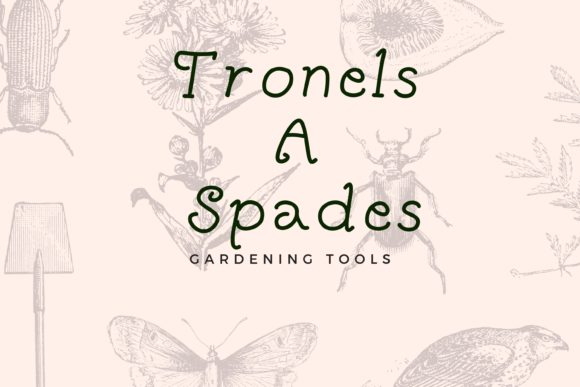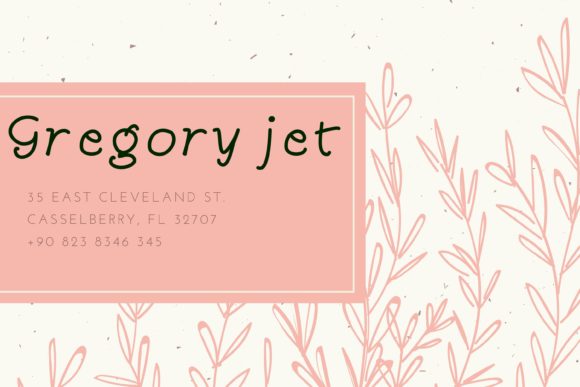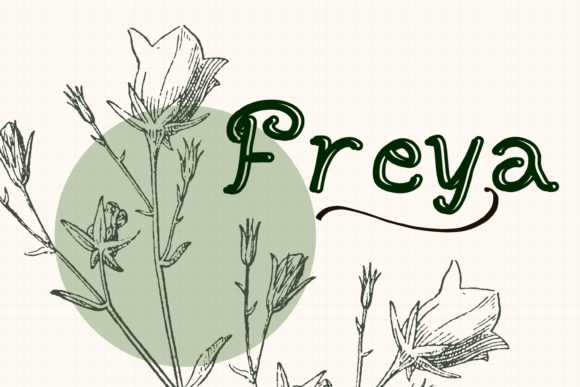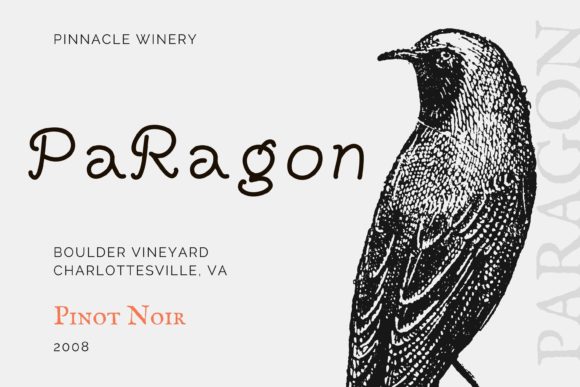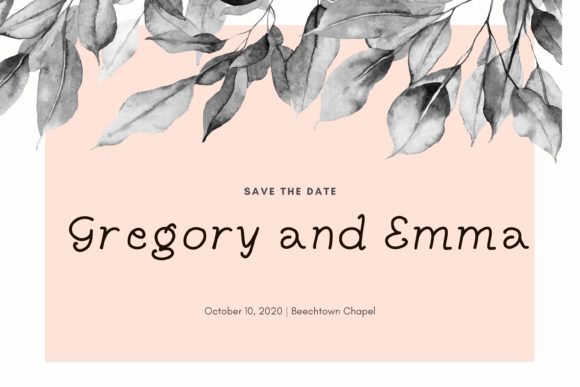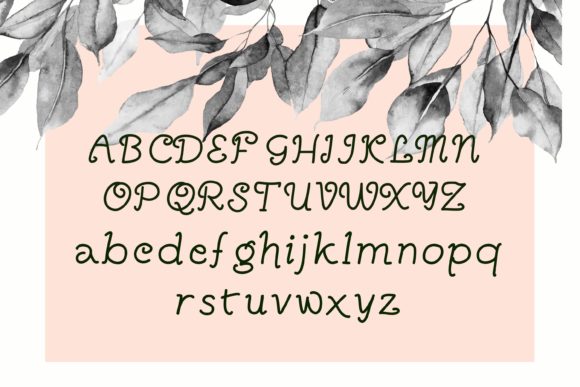
Eloise Font: Elevate Your Designs with Elegance and Class
In the world of typography, fonts play a crucial role in conveying the tone and aesthetic of a design. For those seeking a lovely and delicate script font that exudes elegance and class, Eloise is an excellent choice. This beautiful font was particularly crafted for designers and crafters who need a refreshing look to enhance their creations.
The Characteristics of Eloise Font
Eloise is a script font that boasts a unique blend of classic and modern elements. Its delicate strokes and elegant curves make it perfect for designs that require a touch of sophistication. The font features:
- Delicate strokes: Eloise’s strokes are light and airy, giving it a whimsical feel that’s perfect for designs that require a touch of romance.
- Elegant curves: The font’s curves are smooth and flowing, adding to its overall elegance and sophistication.
- Classic and modern elements: Eloise seamlessly blends traditional and modern typography elements, making it versatile and suitable for a wide range of designs.
Uses of Eloise Font
Eloise is a versatile font that can be used in various design projects, including:
- Wedding and event designs: Eloise’s elegant and delicate nature makes it perfect for wedding invitations, save-the-date cards, and other event-related designs.
- Branding and packaging: The font’s sophistication and elegance make it suitable for luxury brands, high-end products, and premium packaging designs.
- Stationery and journals: Eloise can add a touch of elegance to stationery, journals, and planners, making them perfect for those who appreciate beautiful writing.
- Digital and print media: The font can be used in digital media, such as social media graphics, and print media, like brochures, flyers, and posters.
Benefits of Using Eloise Font
Using Eloise font in your designs offers several benefits, including:
- Unique and distinctive look: Eloise’s elegant and delicate design sets it apart from other fonts, ensuring your designs stand out.
- High readability: The font’s clear and flowing strokes make it easy to read, even in smaller sizes.
- Flexibility: Eloise can be used in various design projects, from digital media to print materials.
- Easy to pair with other fonts: The font’s classic and modern elements make it easy to pair with other fonts, allowing you to create beautiful and harmonious typography combinations.
Tips for Using Eloise Font Effectively
To get the most out of Eloise font, consider the following tips:
- Use it as a headline font: Eloise’s elegance and sophistication make it perfect for headlines and titles.
- Pair it with a sans-serif font: Combining Eloise with a sans-serif font can create a beautiful contrast and add visual interest to your designs.
- Experiment with font sizes and colors: Eloise can be used in various font sizes and colors to create a unique and eye-catching design.
Eloise font is a lovely and delicate script font that exudes elegance and class. Its unique blend of classic and modern elements makes it perfect for designers and crafters seeking a refreshing look for their designs. With its versatility, readability, and flexibility, Eloise is an excellent choice for a wide range of design projects. By following the tips outlined above, you can effectively use Eloise font to elevate your designs and create something truly special.